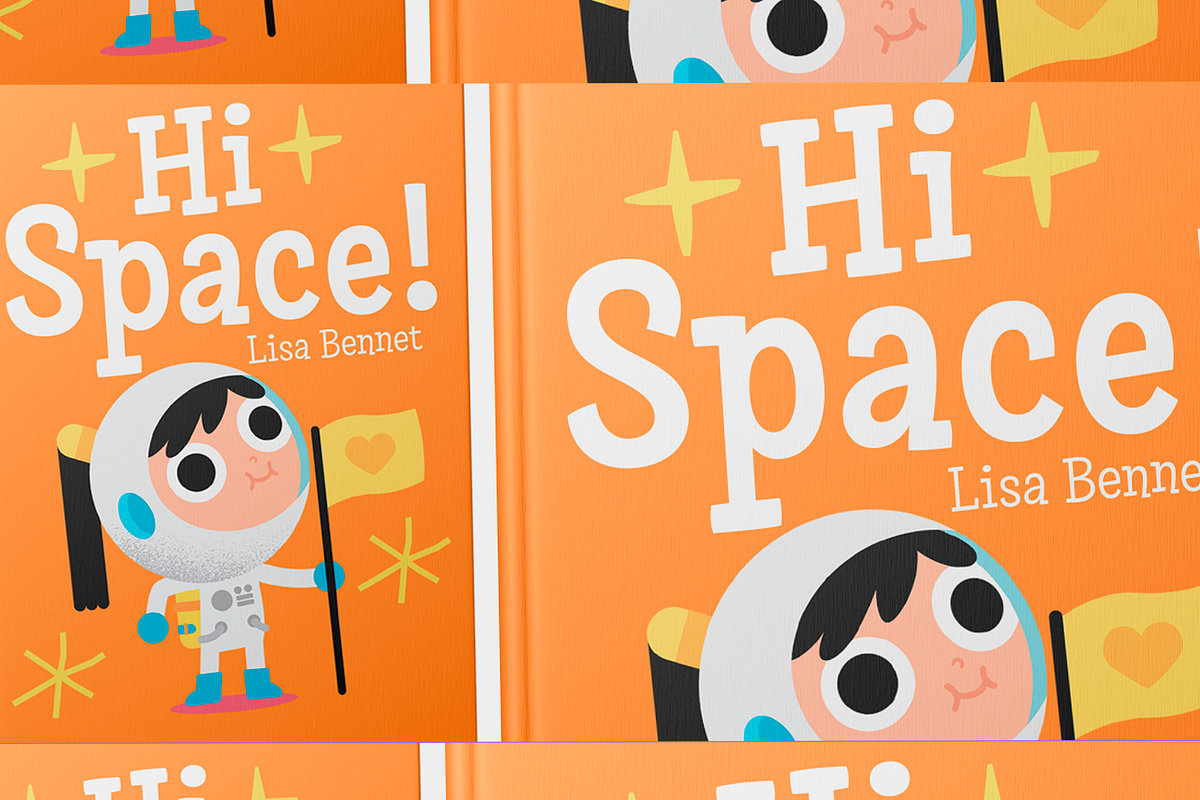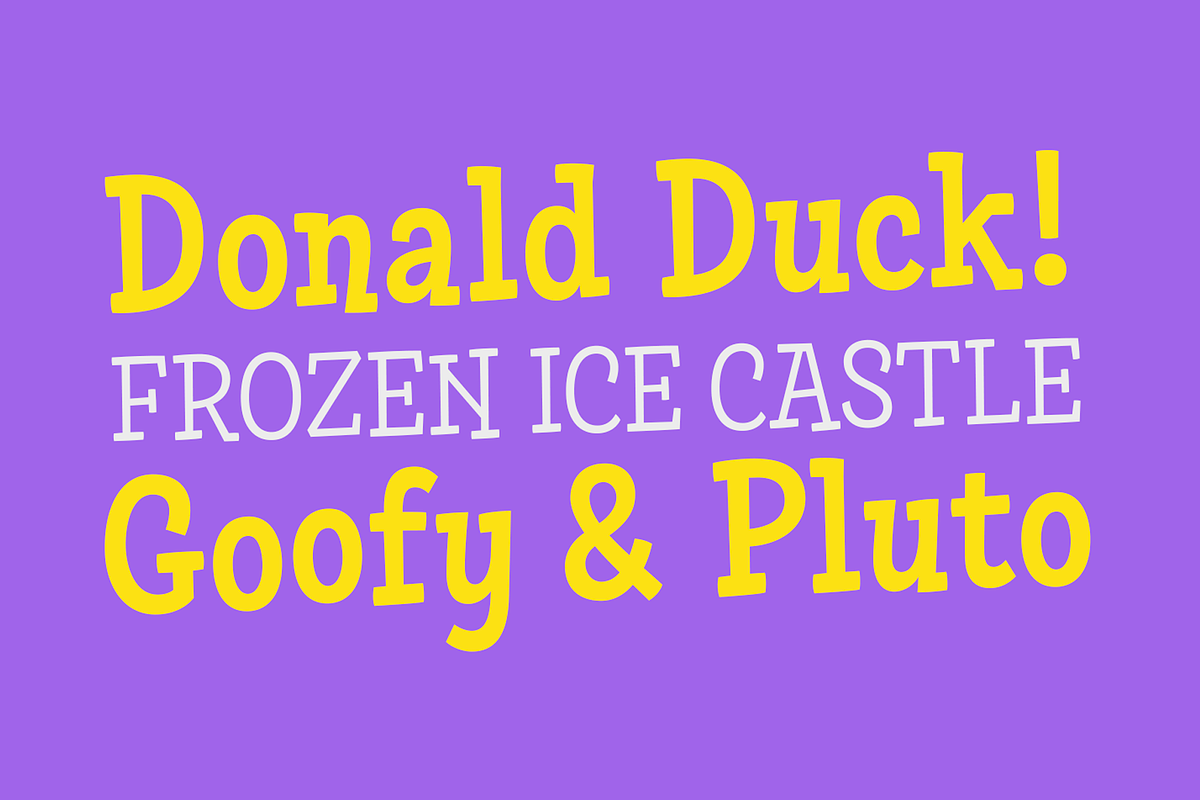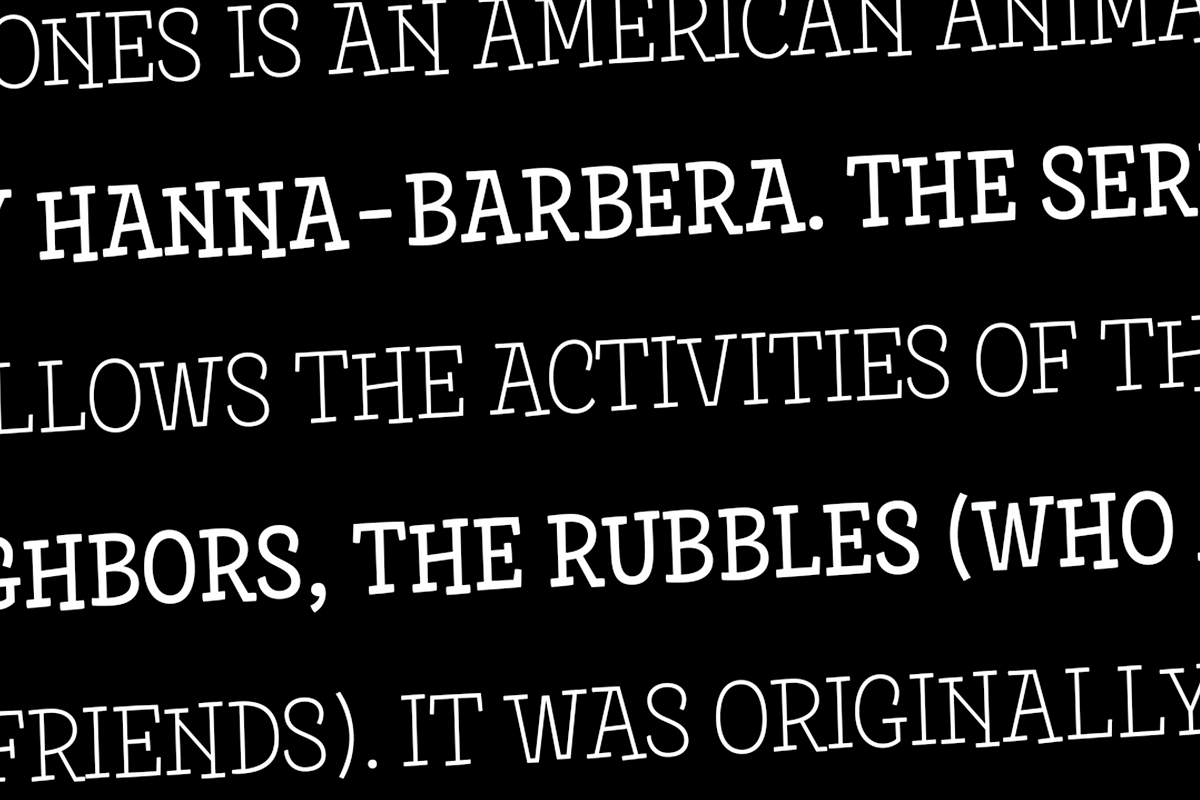
Skippie Year: 2019 - 2020 Author: Rodrigo Araya Designers: Andrey Kudryavtsev,Franco Jonas, Bruno Jara Illustrator: Carlos Híguera / http://carloshiguera.net/ Concept: A typeface specially designed for children's titles, contains different weights from Thin to DemiBold, with extras with Dingbats and many Alternatives.